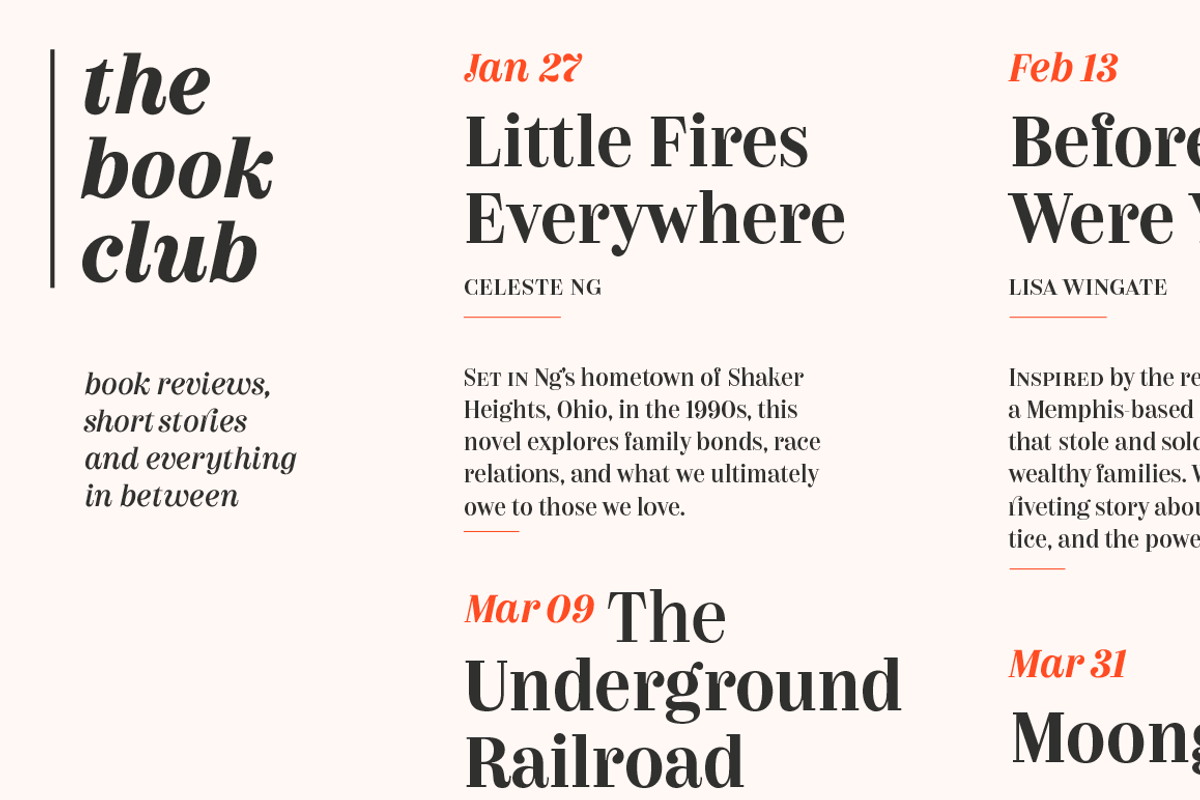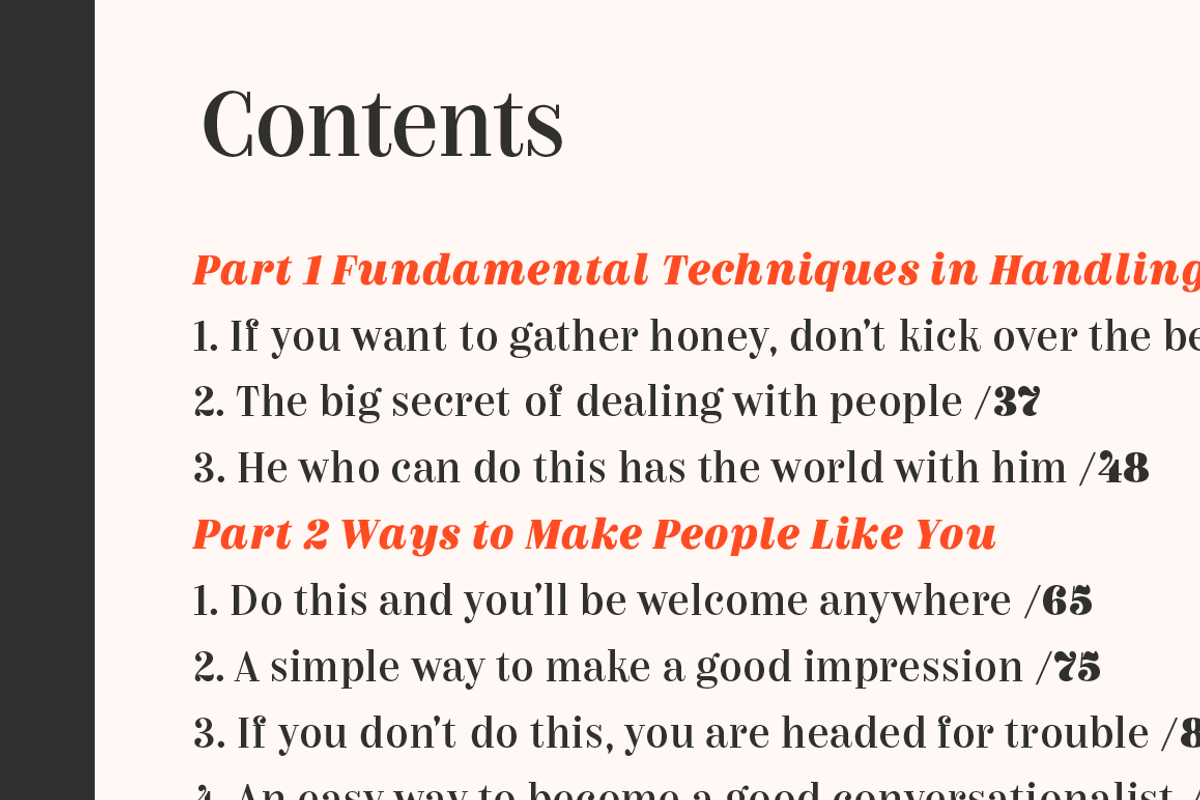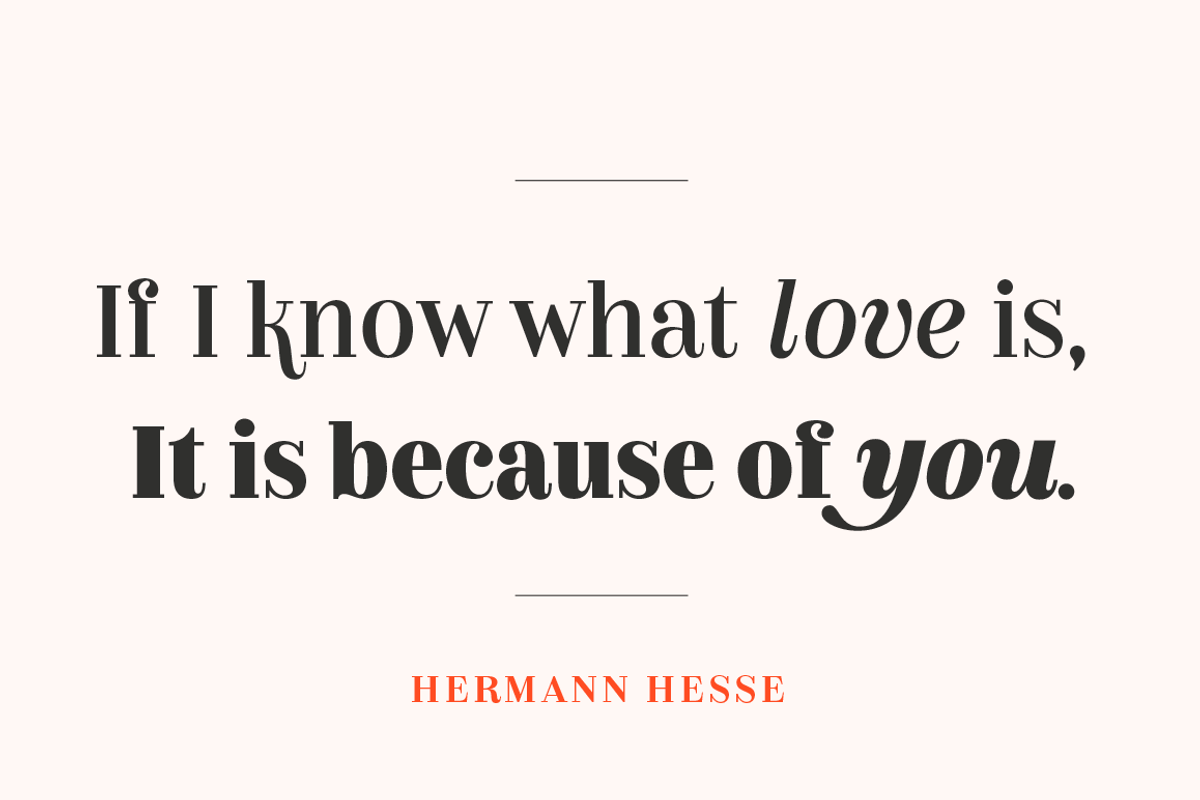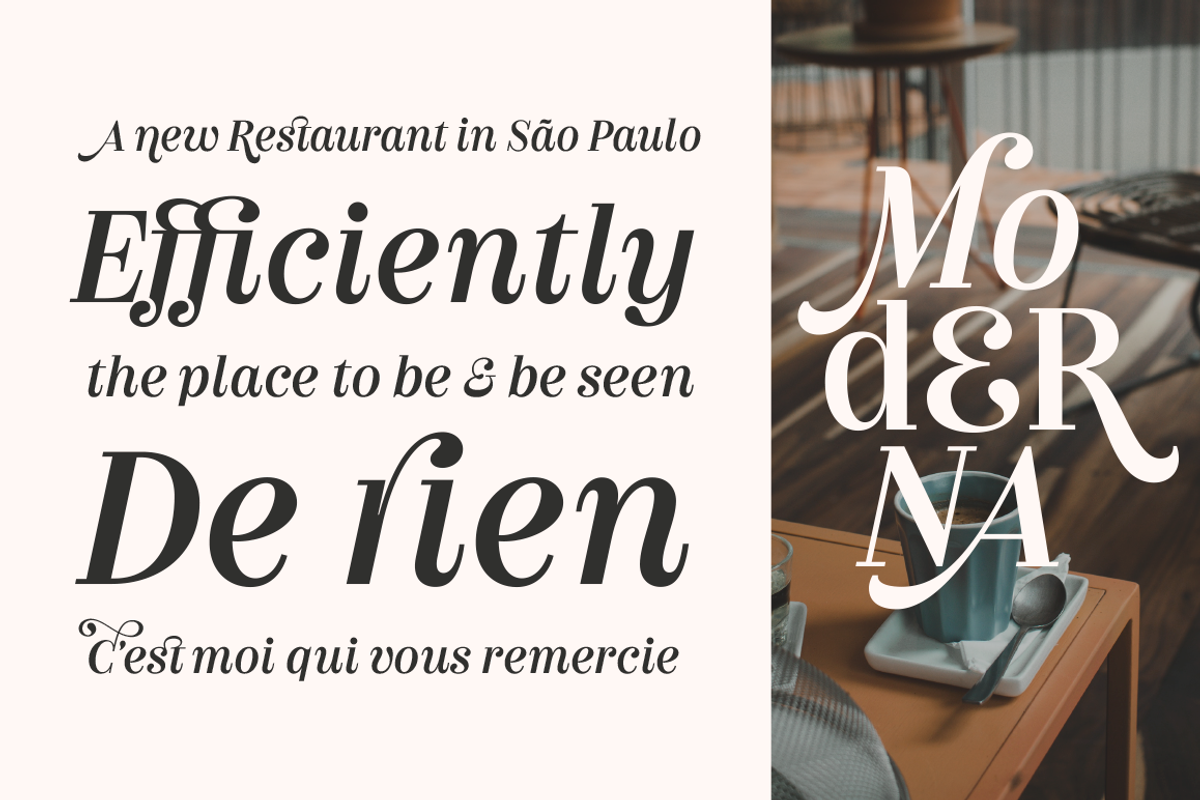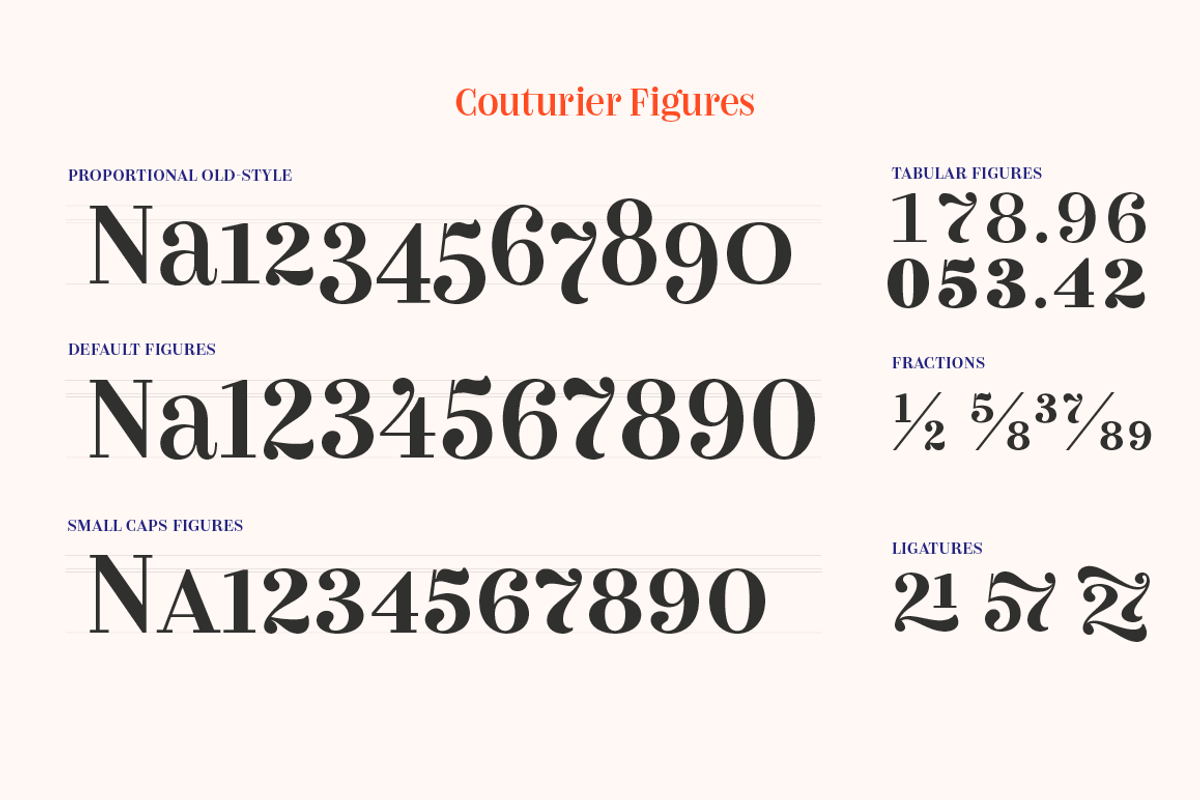
Couturier
Couturier font is all about haute couture: classy ready-to-use characters for each project, perfectly drawn curved shapes and well-balanced counterforms. Elegantly embroidered ligatures, alternative glyphs and beautiful swashes give the font an extremely elegant look. Couturier comes in 4 weights, ranging from Regular to Black, with matching italics, resulting in a total of 8 fonts that help you achieve a strong composition in your publishing projects. Its true italics with a humanist feel give each design a chic personality. The font contains a set of more than 1,200 characters that support over 200 languages.